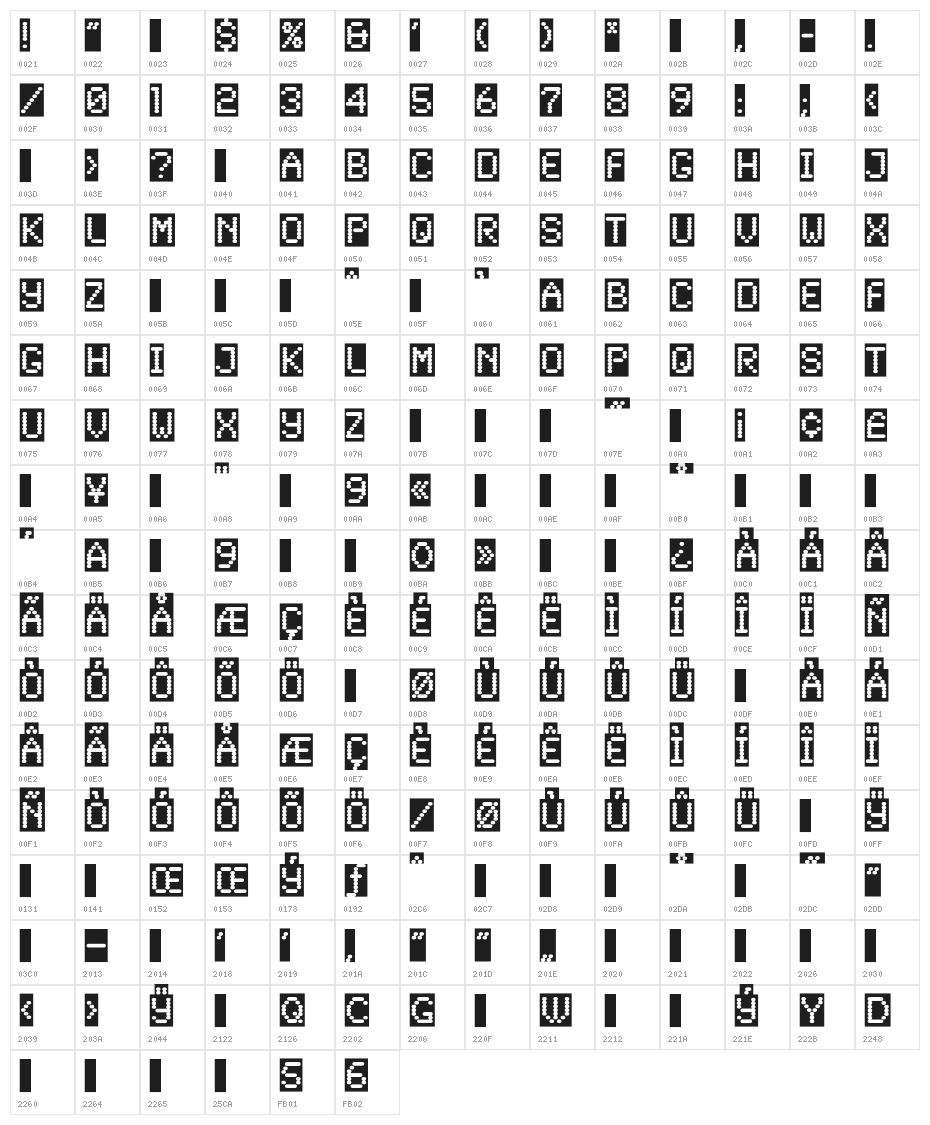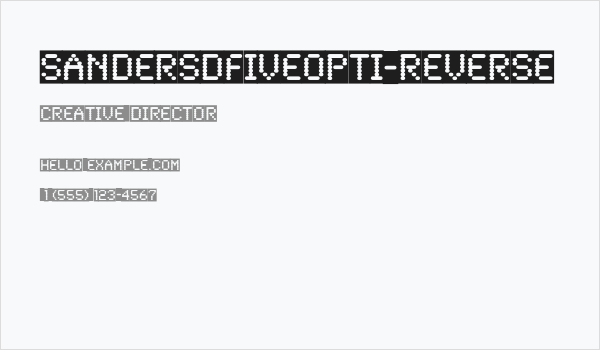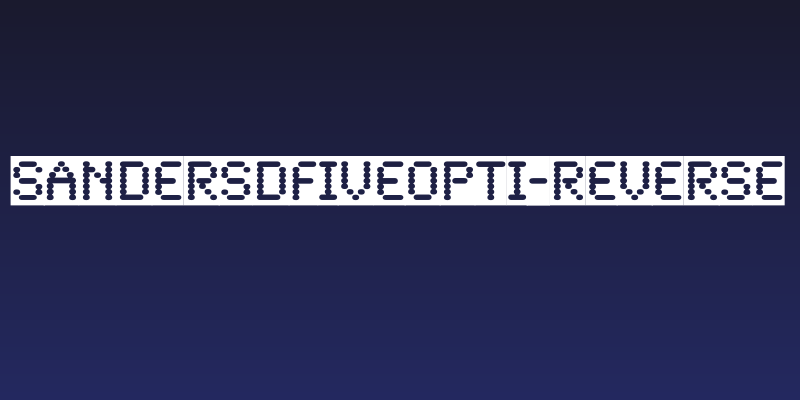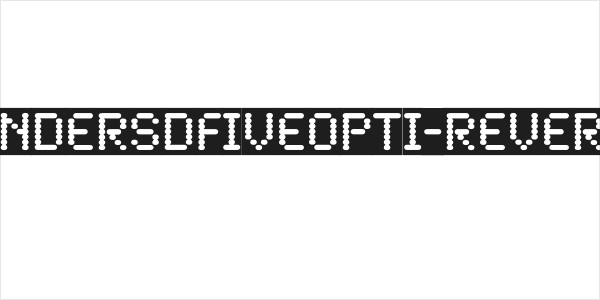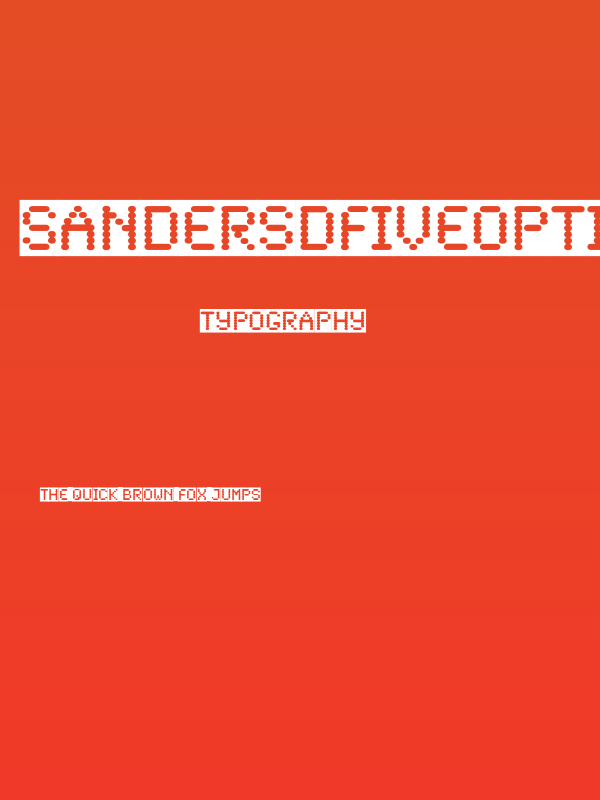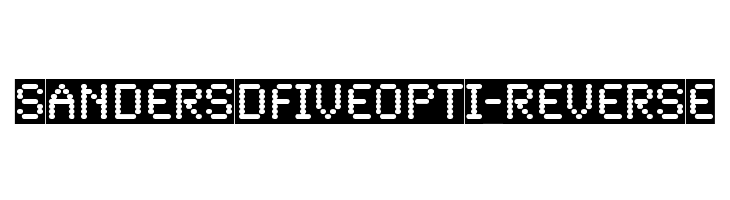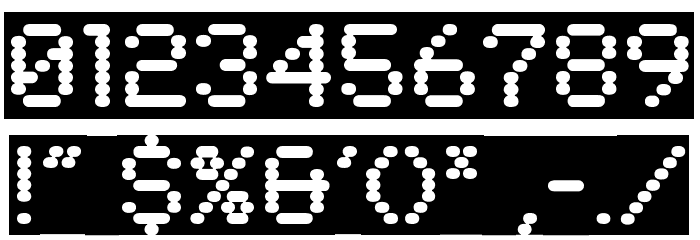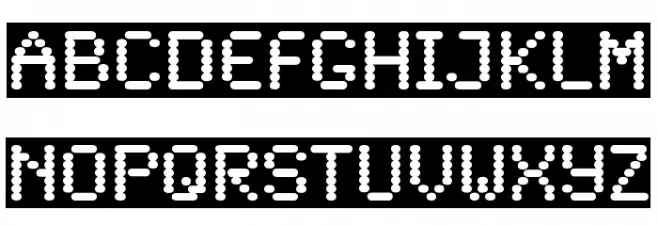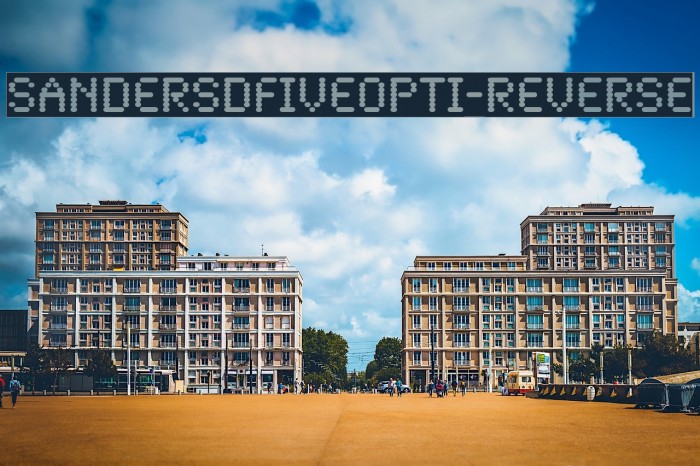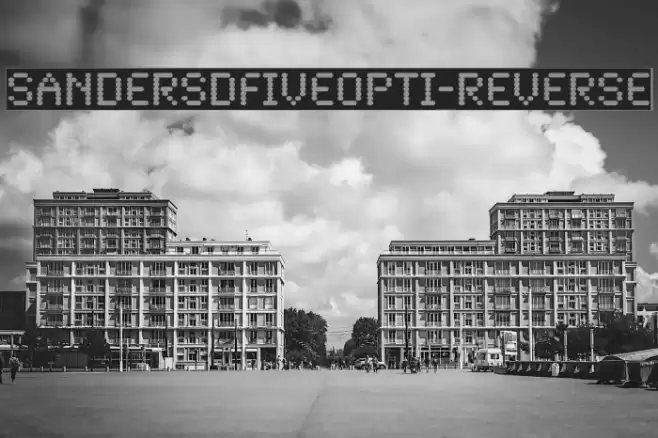
SandersDFiveOpti-Reverse Font
| Anwendungsfall | Headlines, Logos, Digital Displays |
| Vorgeschlagene Projekte | Ideal for digital displays, tech-themed designs, retro gaming graphics, and innovative branding projects. |